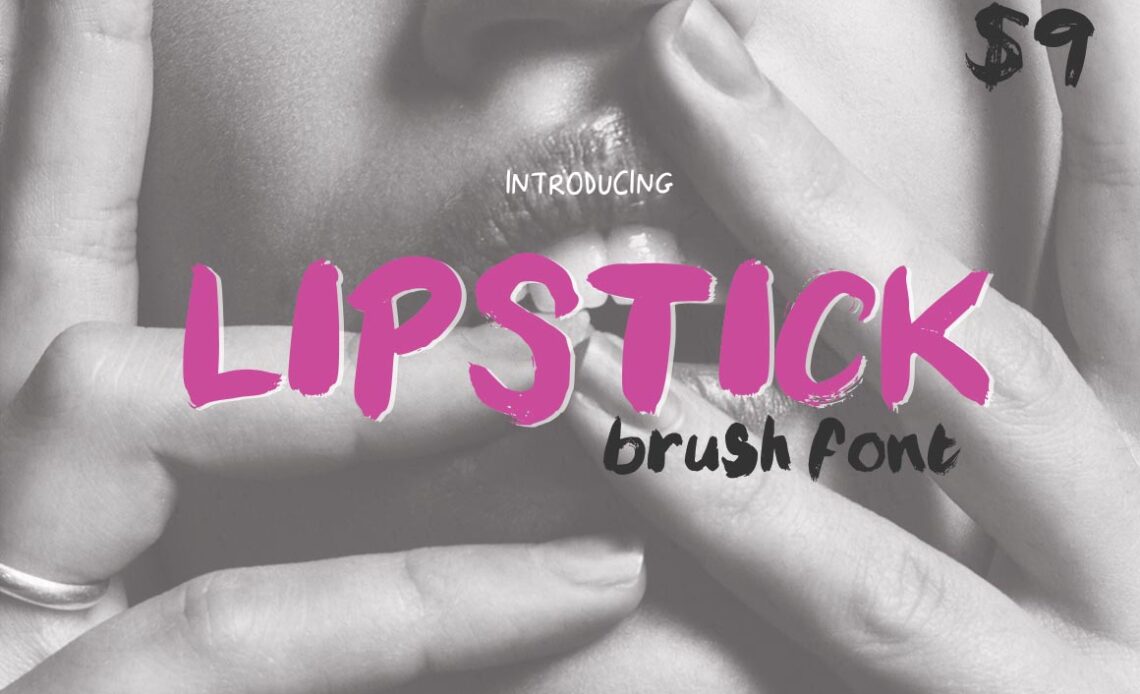
Step into a world of artistic allure with Lipstick Brush Font, a display font that will ignite your creative spark. Handcrafted with the utmost care, this font is a masterpiece of digital artistry, designed to captivate and inspire. Each letter is a stroke of genius, painted with passion and precision, capturing the essence of raw and expressive lettering.
Indulge in the beauty of Lipstick Brush Font's carefully crafted textures, adding a touch of sophistication and elegance to your designs. Its bold and confident strokes command attention, making it perfect for headlines, logos, posters, and any project that demands a striking visual impact. Whether you're a seasoned designer or just starting, Lipstick Brush Font will elevate your work to new heights.
Unleash your creativity and let Lipstick Brush Font paint a picture of your imagination. Its versatility knows no bounds, lending itself seamlessly to a multitude of design styles. From edgy and modern to classic and timeless, this font will effortlessly adapt to your artistic vision. Experience the joy of creating designs that resonate with your audience, leaving a lasting impression that speaks volumes.
Immerse yourself in the richness of Lipstick Brush Font's character set, featuring a captivating array of glyphs and alternates to add depth and dimension to your designs. Experiment with its ligatures and swashes to create stunning typographic compositions that captivate and enthrall. The possibilities are endless, limited only by your imagination.
With Lipstick Brush Font, you're not just downloading a font, you're acquiring a timeless treasure that will forever enhance your design arsenal. Its timeless beauty will endure, providing you with years of creative satisfaction. Embrace the allure of Lipstick Brush Font and let your designs bloom with unparalleled charm and distinction.